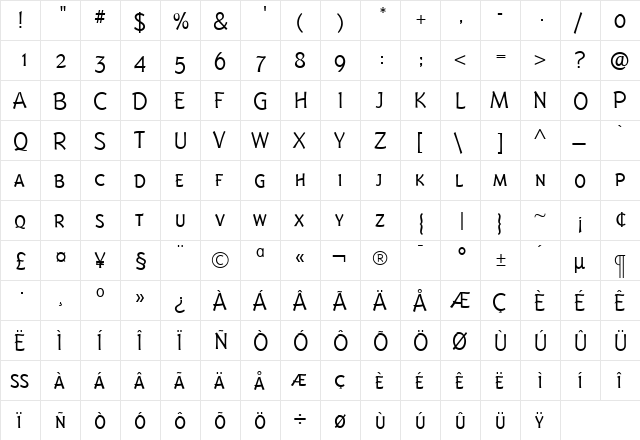
BadgerLightExpert Roman
Design Context for BadgerLightExpert Typeface
BadgerLightExpert takes a measured approach to typography — its balanced proportions and neutral character make it a reliable workhorse for both digital and print work. Its slender proportions lend an understated elegance to any composition.
Pro Tip: Use BadgerLightExpert in both headline and body roles to test its range before committing to a single application.